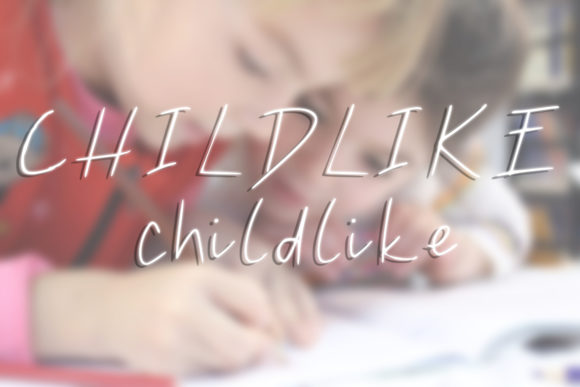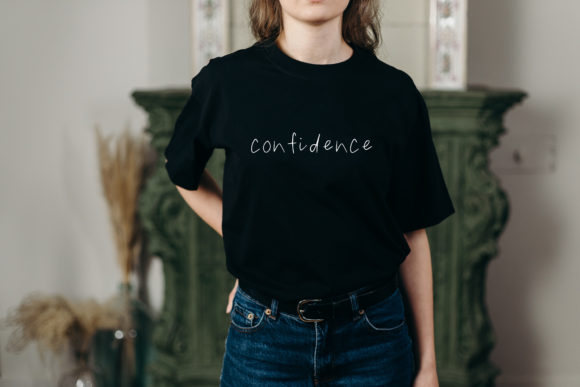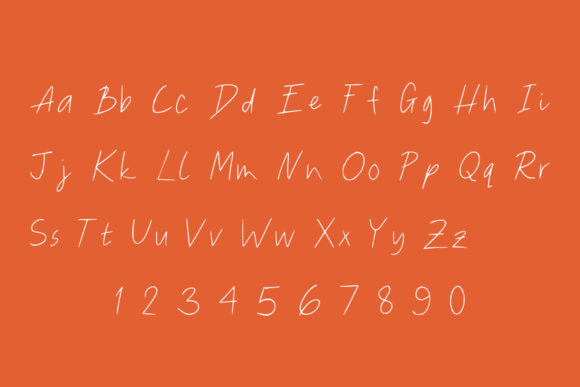
Childlike Font
About Childlike Font
Childlike sounds like a delightful and versatile handwritten font with a touch of quirkiness. Its simplicity and unique style make it suitable for a wide range of design contexts. Here are some creative ideas on how to use Childlike to add a charming and playful element to your designs:
1. Children’s Book Illustrations: Use Childlike for illustrating and hand-lettering children’s books, creating a whimsical and approachable atmosphere for young readers.
2. Nursery Decor: Design nursery prints and wall art with Childlike, featuring cute and playful messages or names of little ones to adorn their special space.
3. Toy Packaging: Apply Childlike to toy packaging designs, evoking a sense of innocence and fun that appeals to children and parents alike.
4. Kid-Friendly Websites: Use Childlike as a header or navigational font for websites targeted at children, creating a friendly and engaging user experience.
5. Playful Greeting Cards: Create greeting cards with Childlike, suitable for birthdays, celebrations, or special occasions, adding a touch of joy and warmth.
6. Cute Product Labels: Apply Childlike to product labels for kid-friendly items such as toys, stationery, or snacks, making them stand out on shelves.
7. Handmade Craft Projects: Use Childlike for DIY craft projects, including scrapbooking, card making, or creating custom gift tags and labels.
8. Adorable Social Media Graphics: Design cute and eye-catching social media graphics using Childlike to promote children’s events, activities, or products.
9. Playdate Invitations: Design playful invitations for children’s playdates or birthday parties, featuring Childlike to set a cheerful and friendly tone.
10. School and Classroom Materials: Apply Childlike to educational materials, posters, or bulletin boards in elementary schools to create a cheerful and inviting learning environment.
11. Child-Centric Logos: Use Childlike to design logos for businesses related to child care, kids’ products, or educational services.
12. Whimsical Apparel Design: Incorporate Childlike into T-shirt designs, onesies, or accessories for kids, adding a touch of charm and cuteness.
13. Fun Coloring Pages: Create adorable coloring pages for children using Childlike, making coloring time even more enjoyable and creative.
14. Kid’s Party Decorations: Design banners, cupcake toppers, and other party decorations for children’s parties with Childlike, creating a lively and playful ambiance.
15. Youthful Event Flyers: Use Childlike to design event flyers for kid-friendly activities, workshops, or community events.
16. Cute Stickers and Decals: Create cute and playful stickers or decals using Childlike for kids’ belongings, adding a personal and fun touch.
17. Whimsical Animated Videos: Use Childlike as the font for hand-drawn animations or videos targeted at children, bringing stories and characters to life.
18. Personalized Children’s Gifts: Apply Childlike to personalize items like mugs, backpacks, or lunchboxes with children’s names or messages.
19. Enchanting Party Invitations: Design enchanting invitations for themed parties like fairytales, superheroes, or animal adventures, using Childlike to capture the spirit of fun and imagination.
20. Youthful Blog Graphics: Create youthful and colorful blog graphics with Childlike for family, parenting, or kids’ activity blogs.
In summary, Childlike is a simple yet unique handwritten font that adds a dose of quirkiness and playfulness to various design projects. Its versatility allows it to shine in different contexts, especially those targeted at children and families. Embrace the charm of Childlike and explore the countless creative possibilities to create designs that evoke joy, warmth, and a sense of wonder in both children and the young at heart.